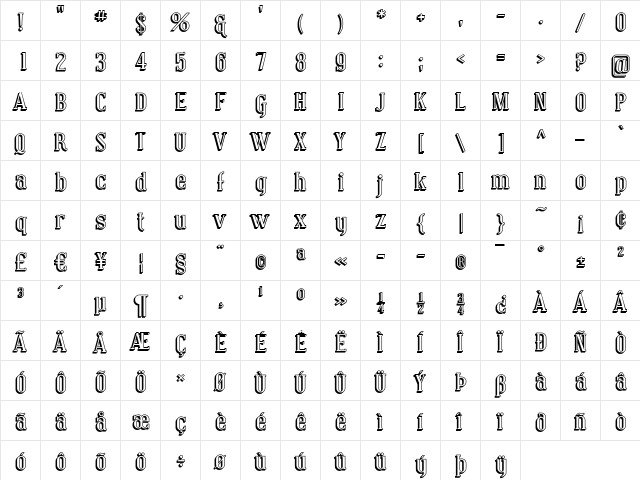
Covington Shadow Regular
| Designer | Derek Vogelpohl |
Design Context for Covington Shadow Typeface
Covington Shadow is built around its visual character rather than neutral utility — its distinctive forms are designed to make an impression at display sizes.
Font Pairing: Pair with a clean neutral sans-serif for body copy to let Covington Shadow's character lead without overwhelming the composition.